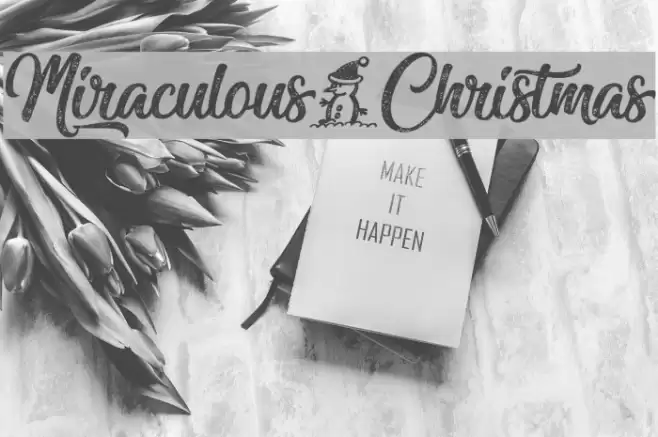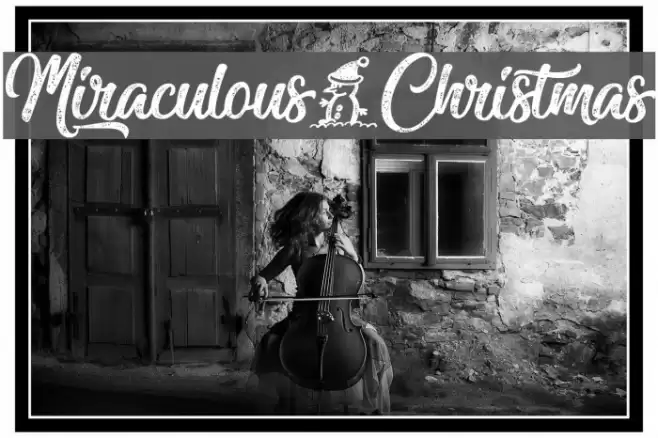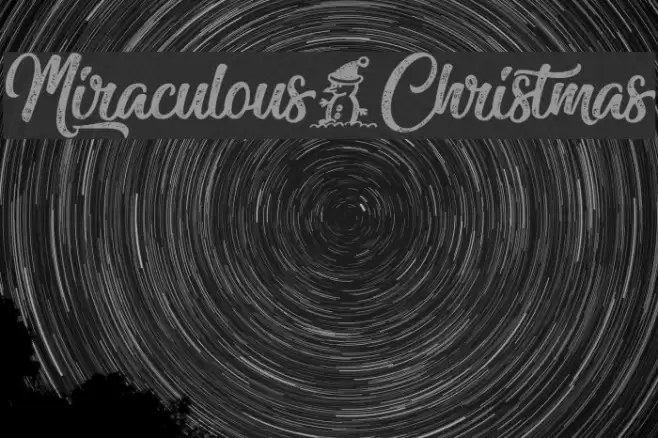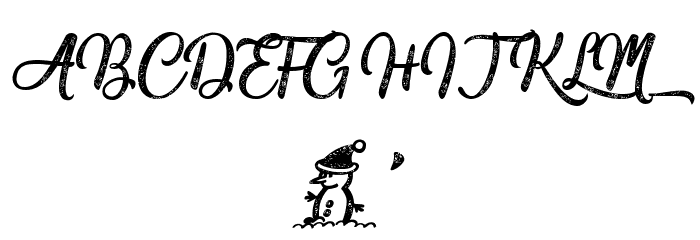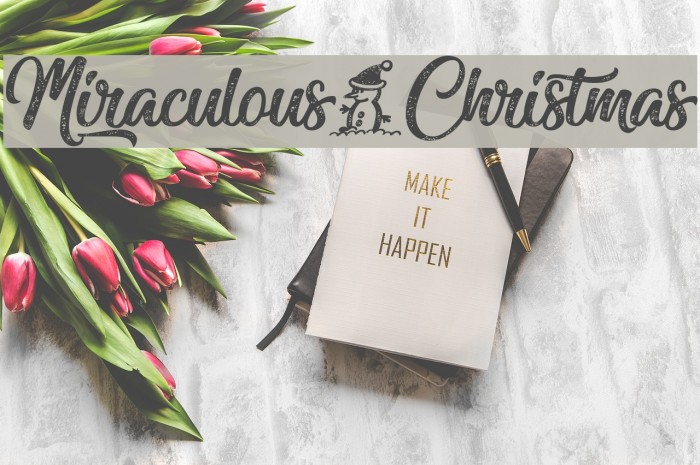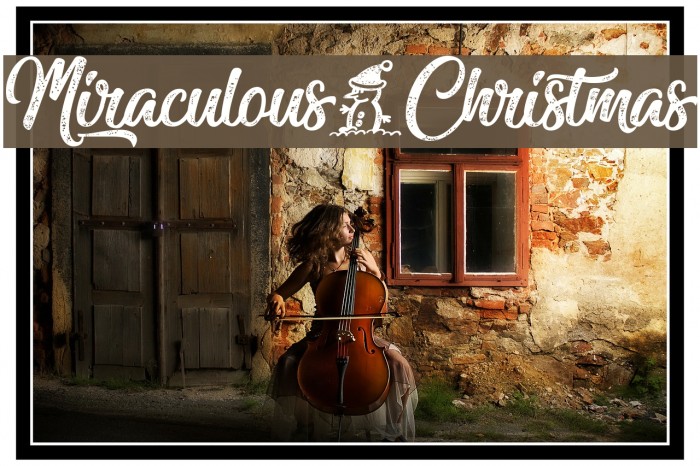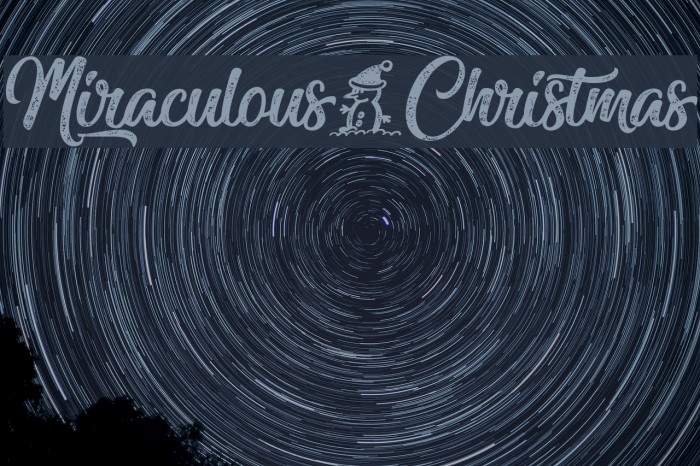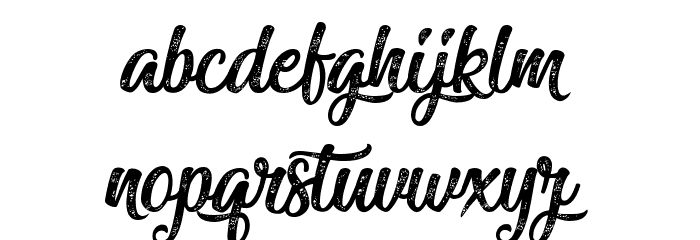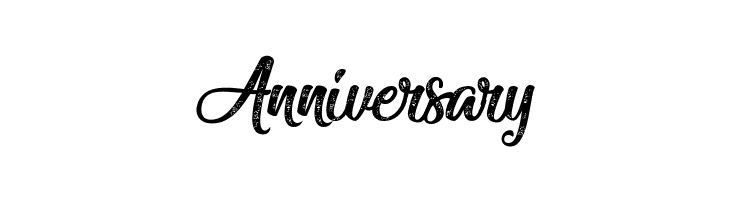
Miraculous&Christmas Font
Miraculous&Christmas Description
This font exudes a festive and playful charm, perfect for holiday-themed projects. The letters are crafted with a script style that features elegant, flowing curves and a textured, distressed appearance reminiscent of snowflakes or glitter. The uppercase letters are bold and slightly larger, while the lowercase letters maintain a consistent flow with subtle flourishes. The numbers and special characters are designed to match the whimsical style, making them ideal for creative and decorative uses. The overall look is both joyful and sophisticated, capturing the essence of a magical winter season.
A festive, script-style font with a textured, snowy appearance from Uncategorized fonts.
- Proposed Projects: Ideal for holiday cards, festive invitations, seasonal branding, and decorative signage.
- Use Case: Headlines, Logos, Decorative text